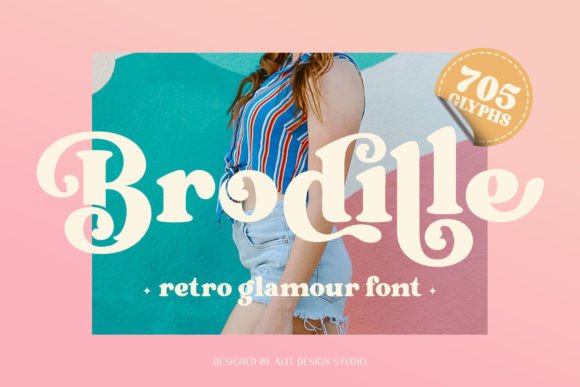
Introducing Brodille, the retro-glam display font that will transport you back to the chic and stylish era of vintage design. Created by the talented designers at Alit Design, this font is the perfect addition to any collection looking for that extra touch of elegance and sophistication.
Brodille is more than just a font, it's a statement. With its sleek and trendy design, it effortlessly adds a touch of glamour to any project. Whether you're designing a logo, creating a website, or crafting an eye-catching poster, Brodille will elevate your design and capture the attention of your audience.
This font is perfect for display purposes, making it ideal for headlines, titles, and large text blocks. Its unique and eye-catching design will ensure that your message is communicated in the most impactful way possible. And with its versatile range of styles and weights, Brodille is perfect for any occasion.
The retro-inspired design of Brodille is both classic and timeless, making it a font that will never go out of style. Its vintage appeal adds a touch of nostalgia to any design, while its modern elements keep it fresh and contemporary. It's the perfect combination of old and new.